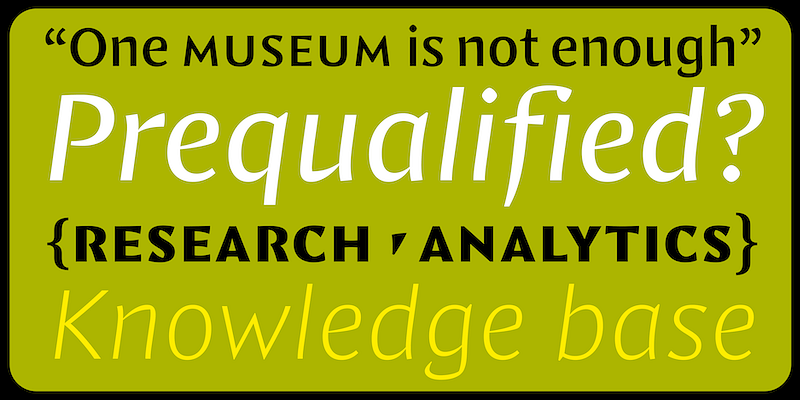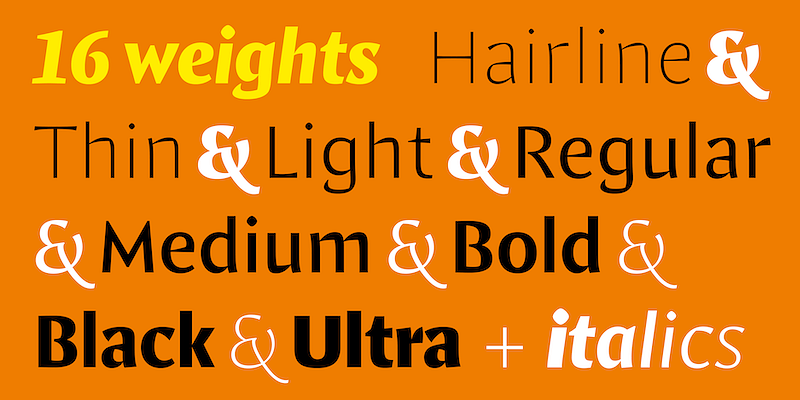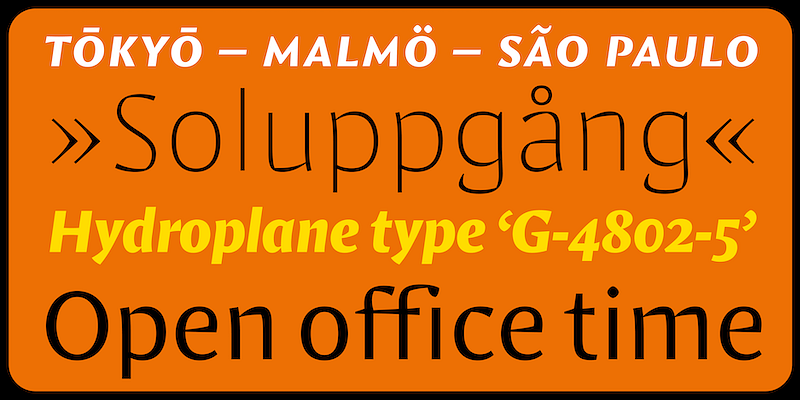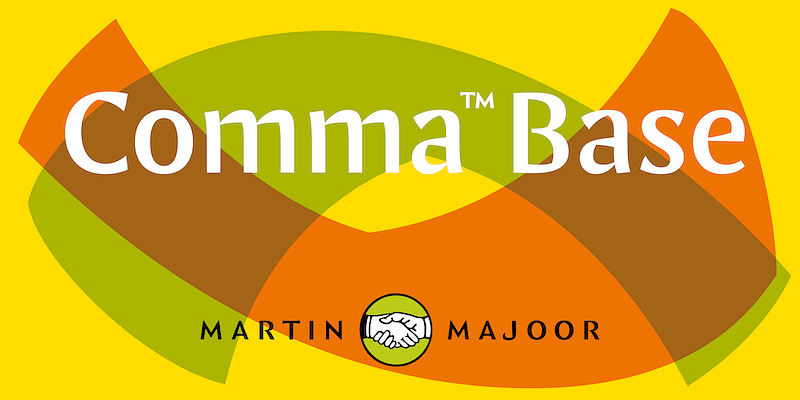
The Comma trilogy is a range of three closely connected typefamilies (Comma BASE, Comma SANS, Comma SERIF), each with its own voice.
Comma BASE is not a typical sans; its unusually high contrast pushes it into serif territory.
Comma SANS uses the skeleton of Comma Base for geometric, low-contrast characters.
Comma SERIF carries the warmth and angularity of Comma Base, while adding strong serifs, classical proportions, and a true italic with calligraphic details.
Comma BASE is a sans typeface for it has no serifs. No wait, it is a typical serif typeface because it has a high contrast. Strictly speaking, Comma Base is a missing link between serif and sans. It could function as a base from which a sans can be derived, but it could also be the base for a serif typeface. Yet it has enough qualities of its own.
Comma BASE supports several OpenType features for advanced typographic control. It consists of 16 styles, 8 weights from Hairline to Ultra, in both roman and italic.
Comma BASE is a uniwidth font. This means changing a text from normal to bold doesn’t effect the set width, a professional feature that is highly appreciated by graphic designers.
In 2021 Martin Majoor launched an independent type foundry under his own name. Majoor is known for his award-winning typefaces (Scala, Seria, Nexus) that were originally published by Fontshop. His Scala and Scala Sans are considered ‘classics’ and are among the first digital typefaces. In collaboration with Jos Buivenga he designed the large and successful Questa family. In his latest typeface ‘Comma Base’, he explores the basic shapes of a typeface, with both typical sans features and at the same time serif elements. It can be seen as a typeface featuring the best of both worlds. Comma Base is the first typeface to be released by his own foundry.